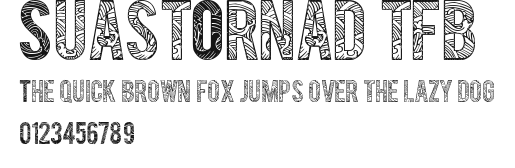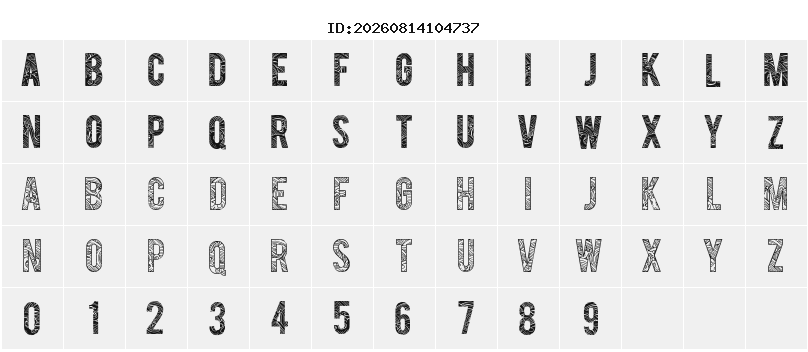
• Font Name: SuastOrnad tfb
• Full Font Name: SuastOrnad tfb
• Version: Version 1.00 December 16, 2012, initial release
• Designer: kaiserzharkhan
About SuastOrnad tfb.ttf
SuastOrnad tfb.ttf is a modern, elegant sans-serif font designed for ultimate readability and visual harmony. Perfect for branding, headlines, web design, and print materials.